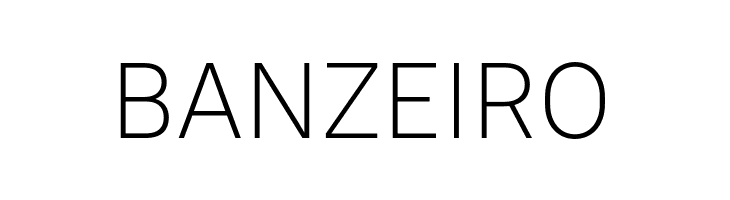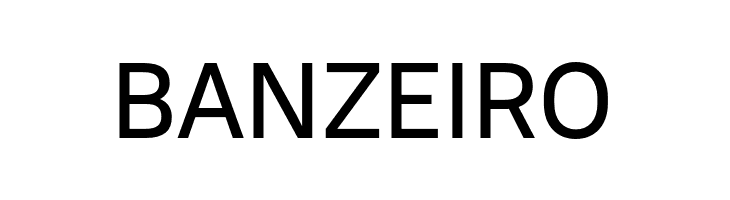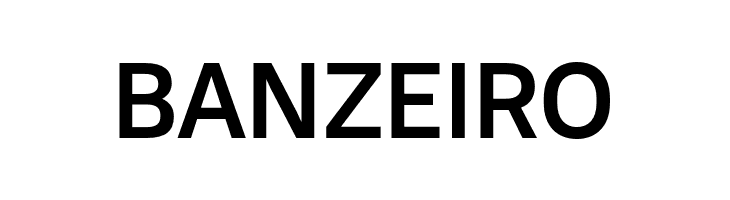
A modern, light sans-serif font with clean lines and excellent readability.
A clean, modern sans-serif font with semi-bold weight and balanced design.
A clean, modern sans-serif font with consistent stroke width and high legibility.